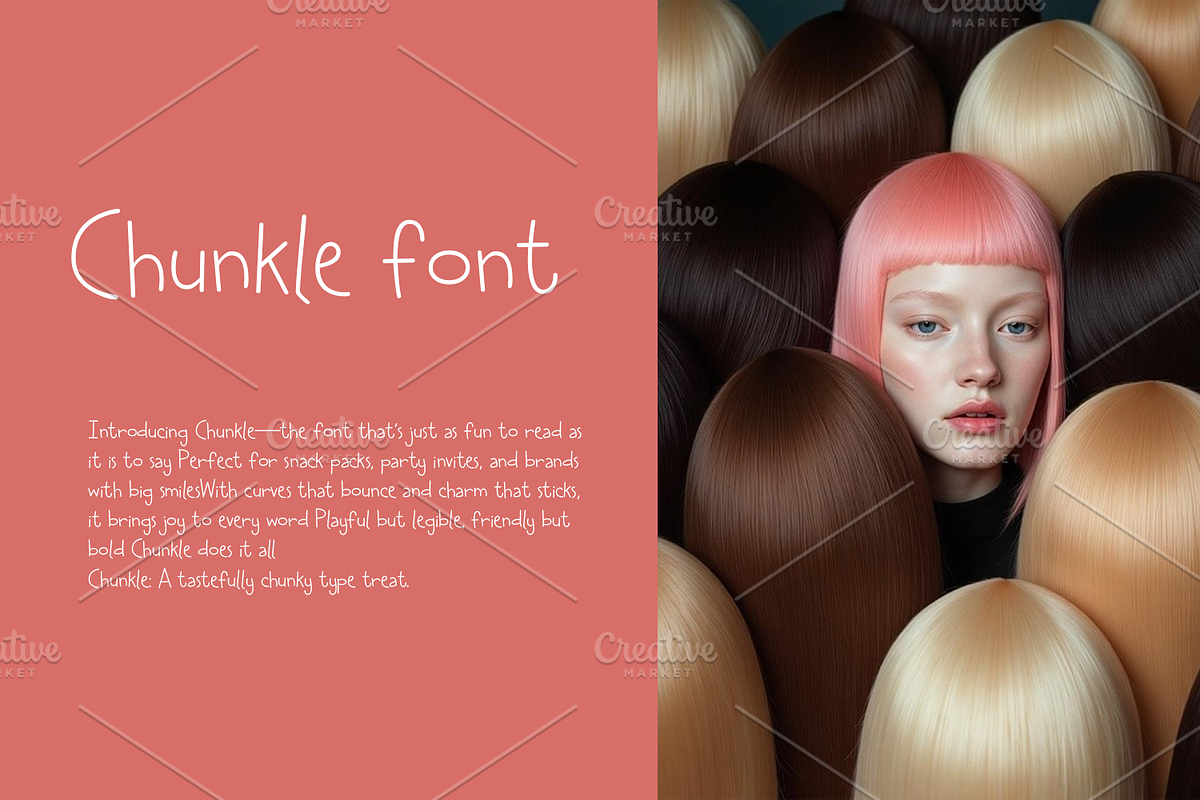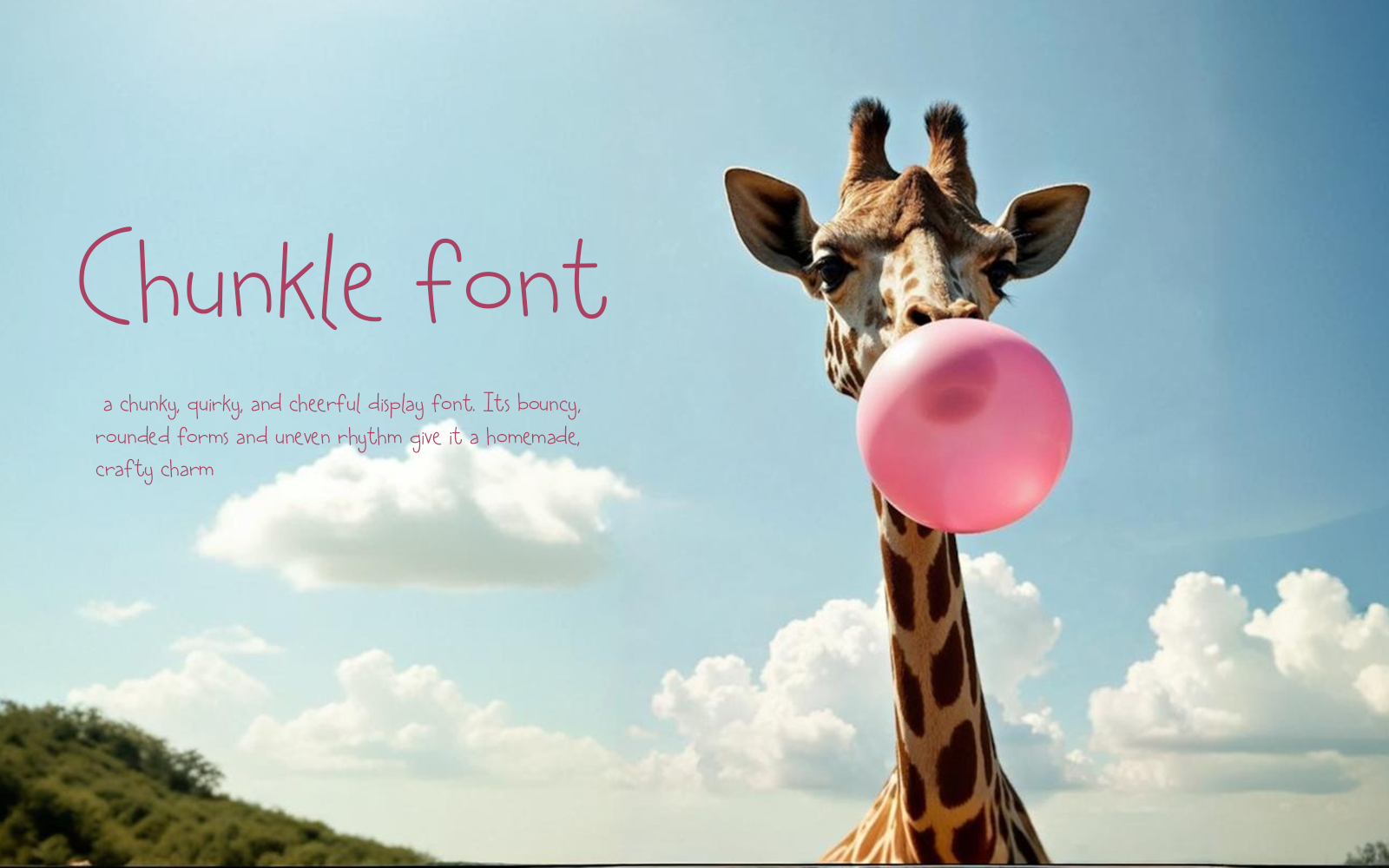
Introducing Chunkle—the font that’s just as fun to read as it is to say.
Perfect for snack packs, party invites, and brands with big smiles.
With curves that bounce and charm that sticks, it brings joy to every word.
Playful but legible, friendly but bold—Chunkle does it all.
Chunkle: A tastefully chunky type treat.